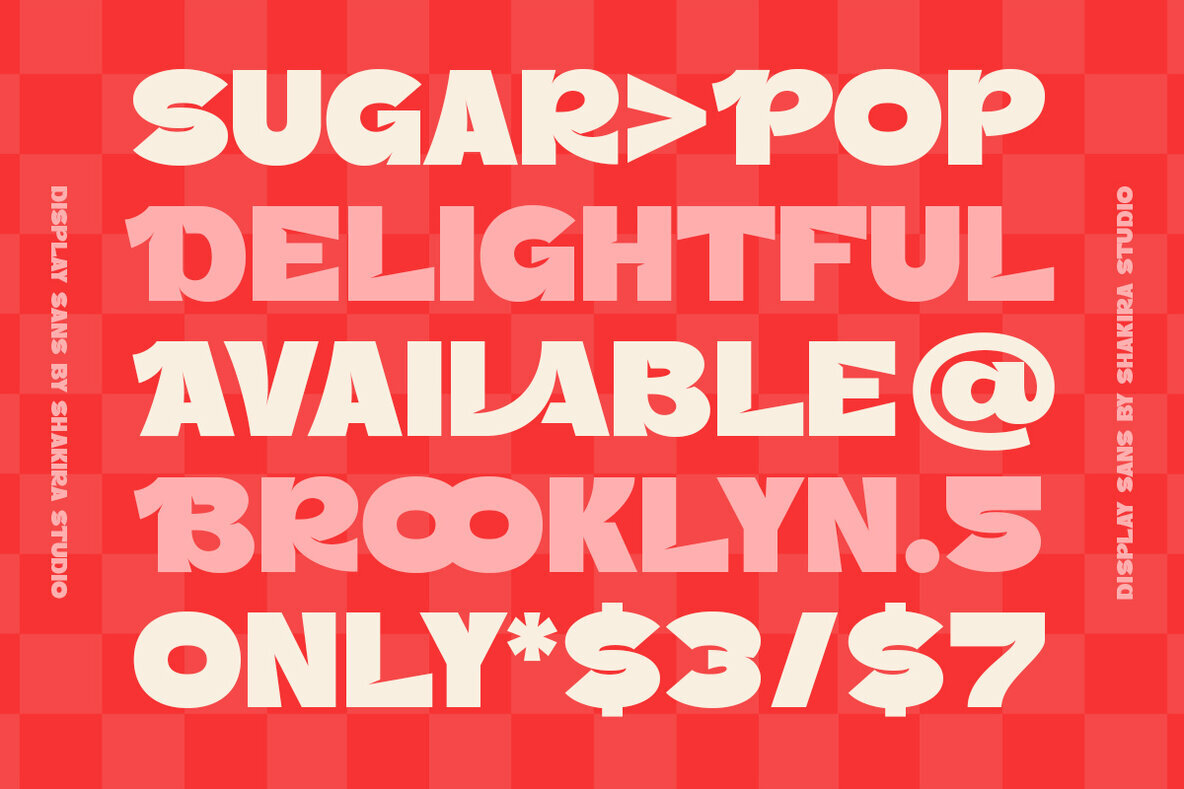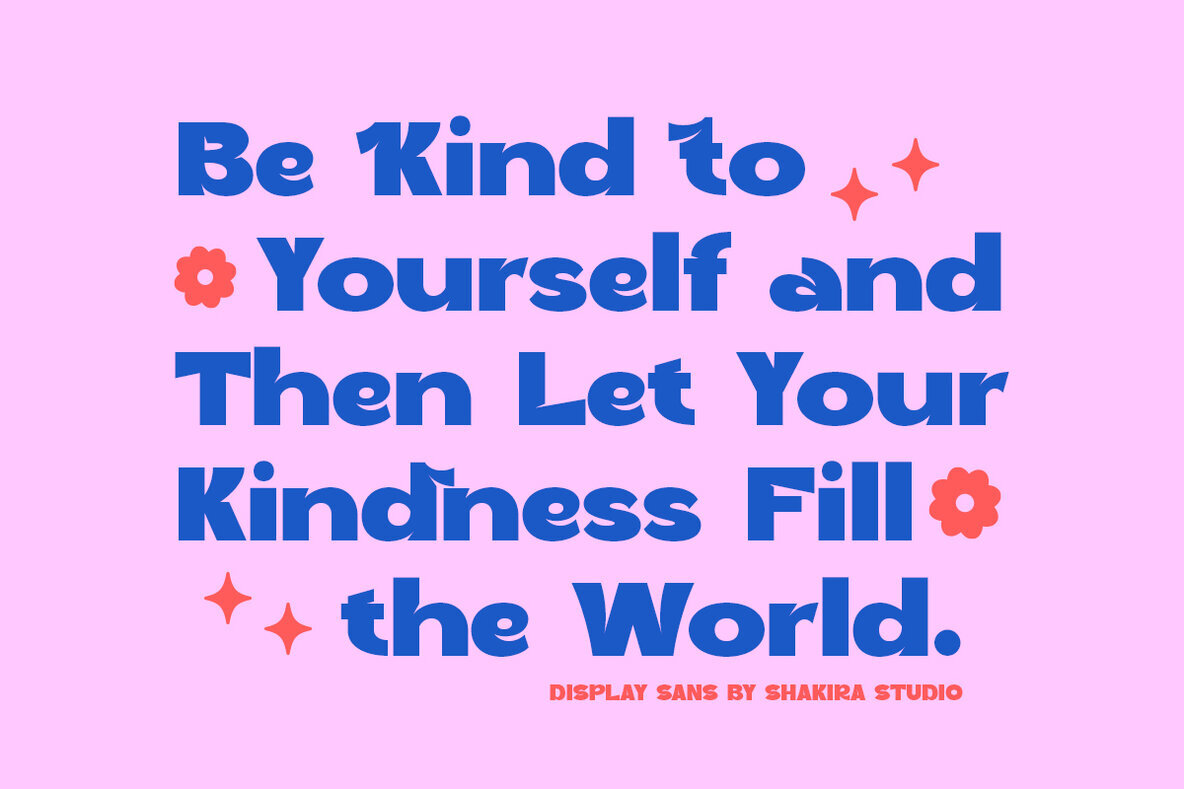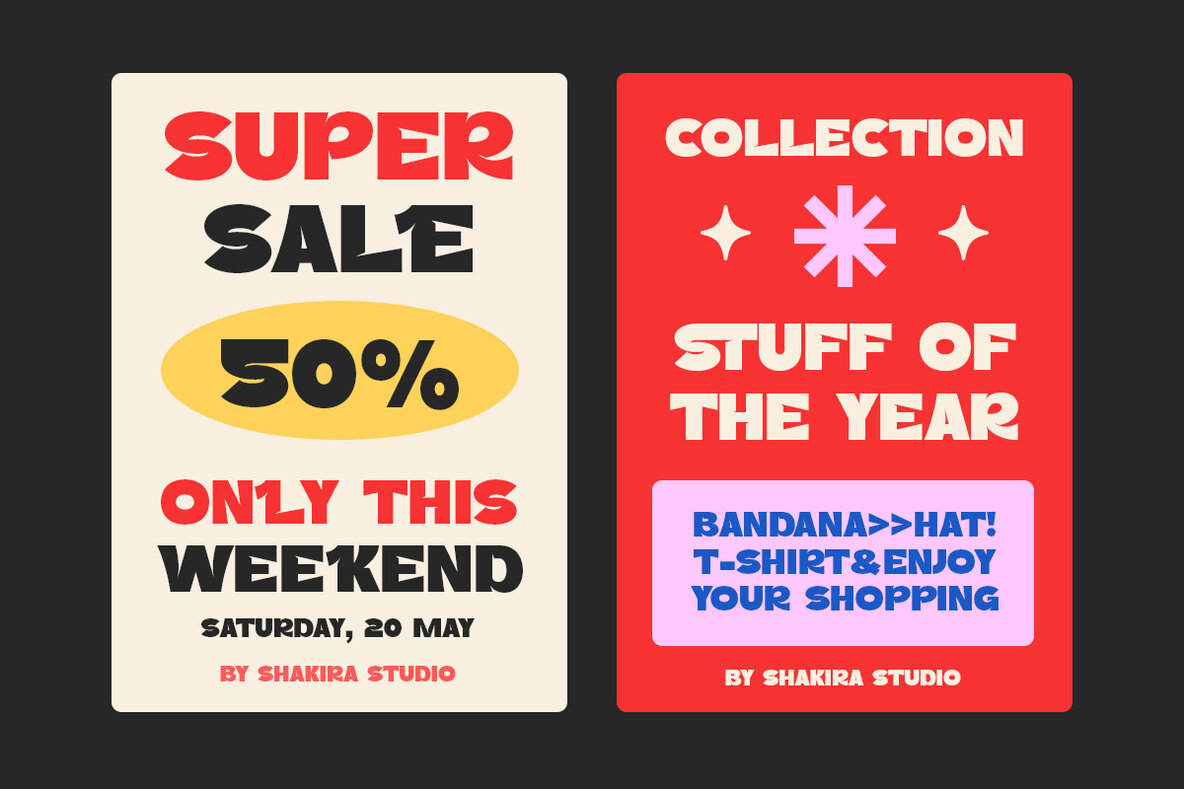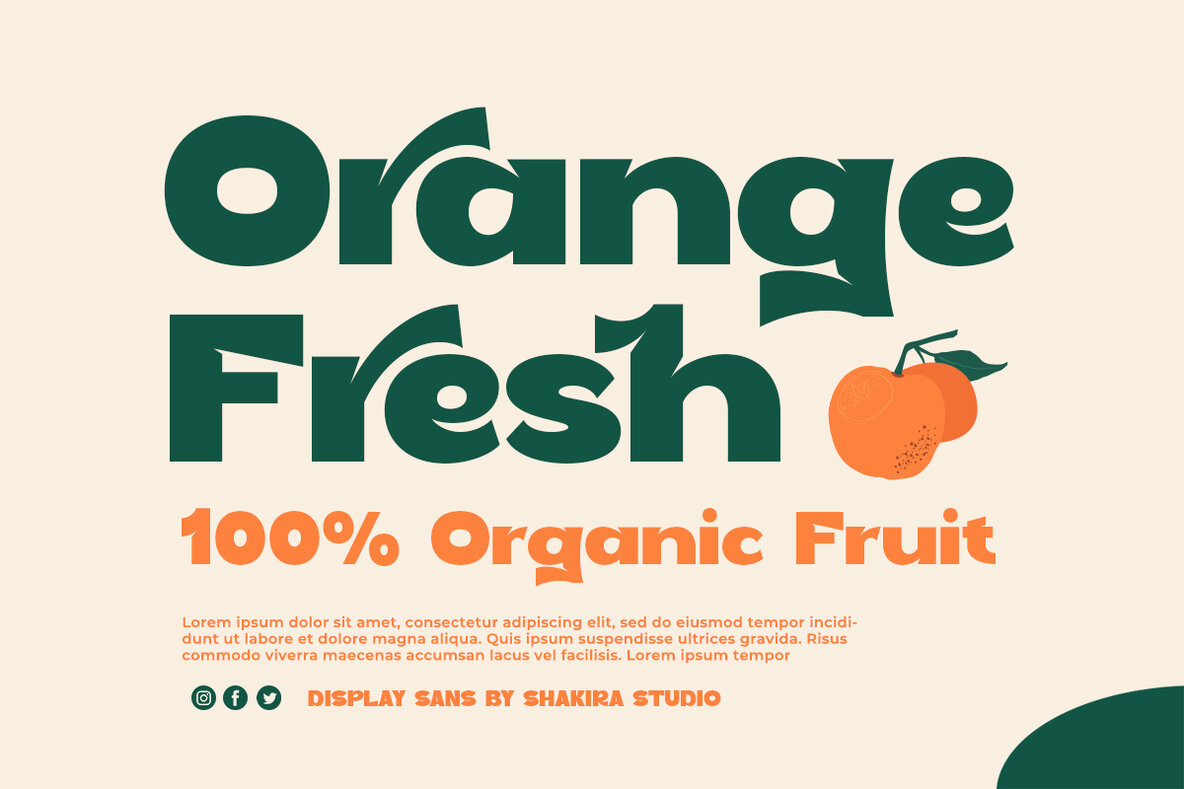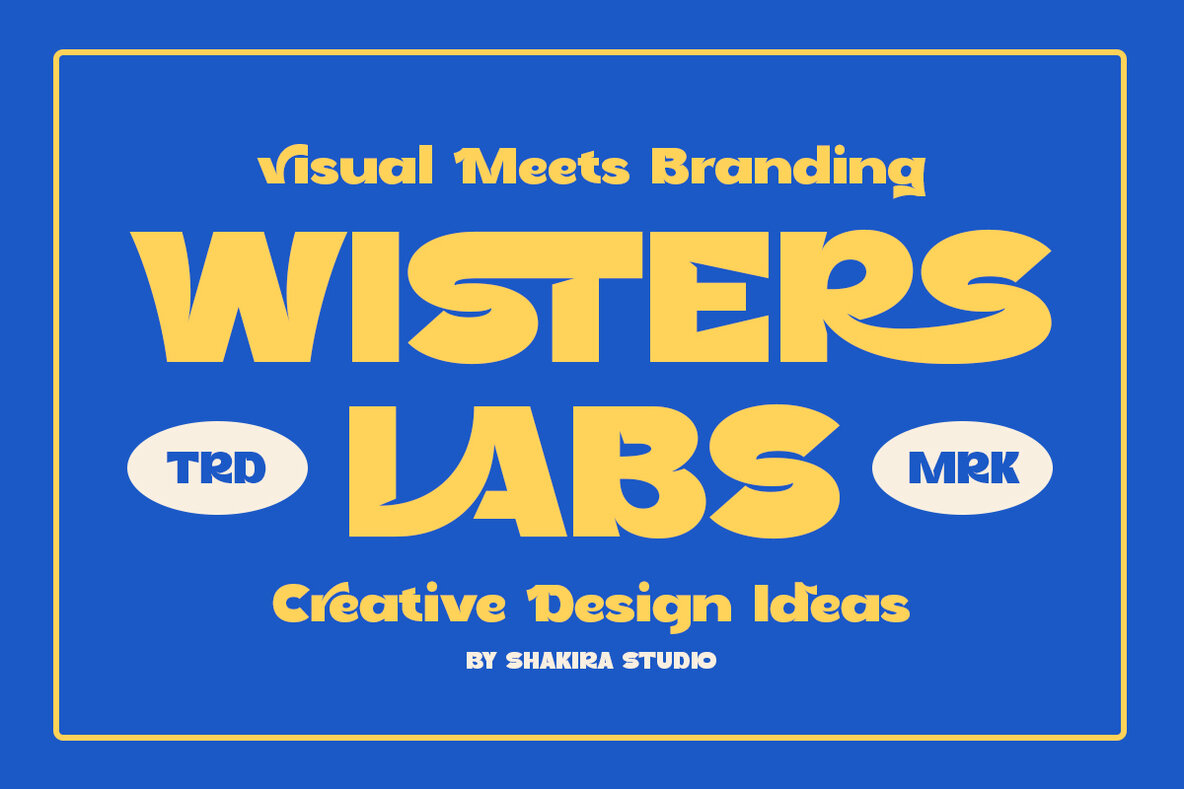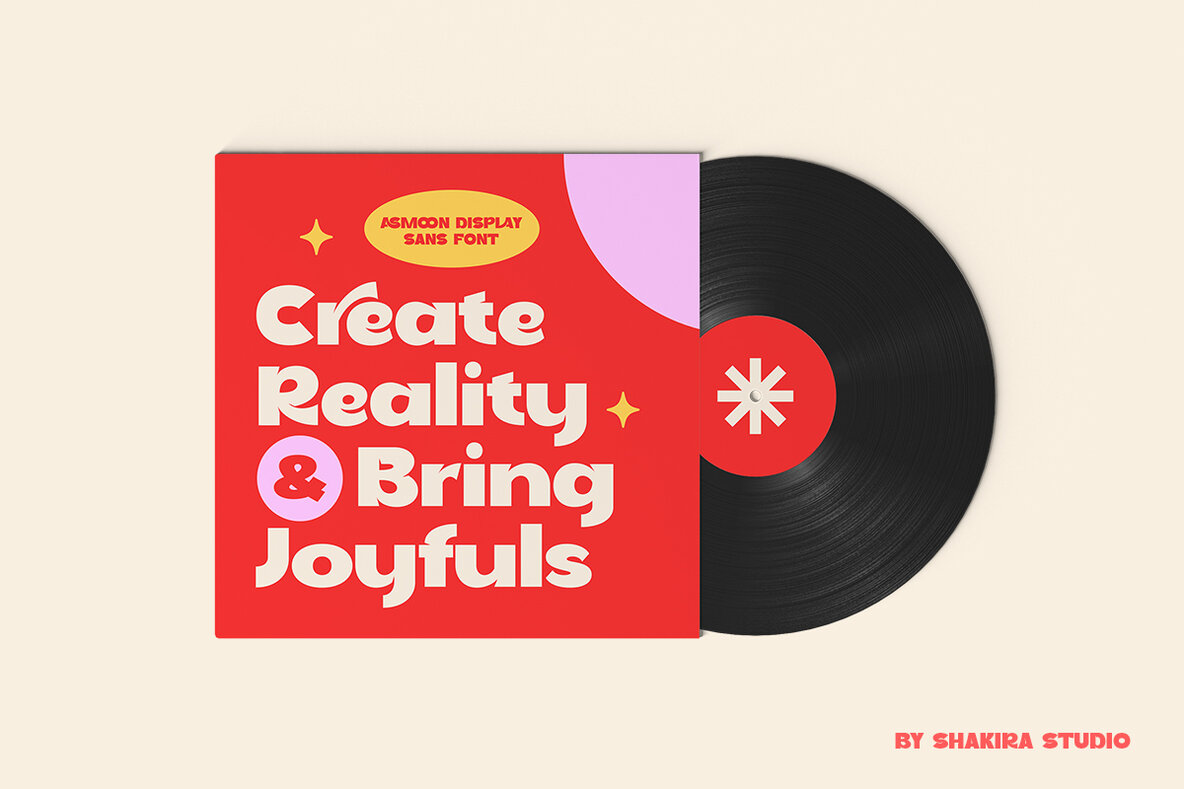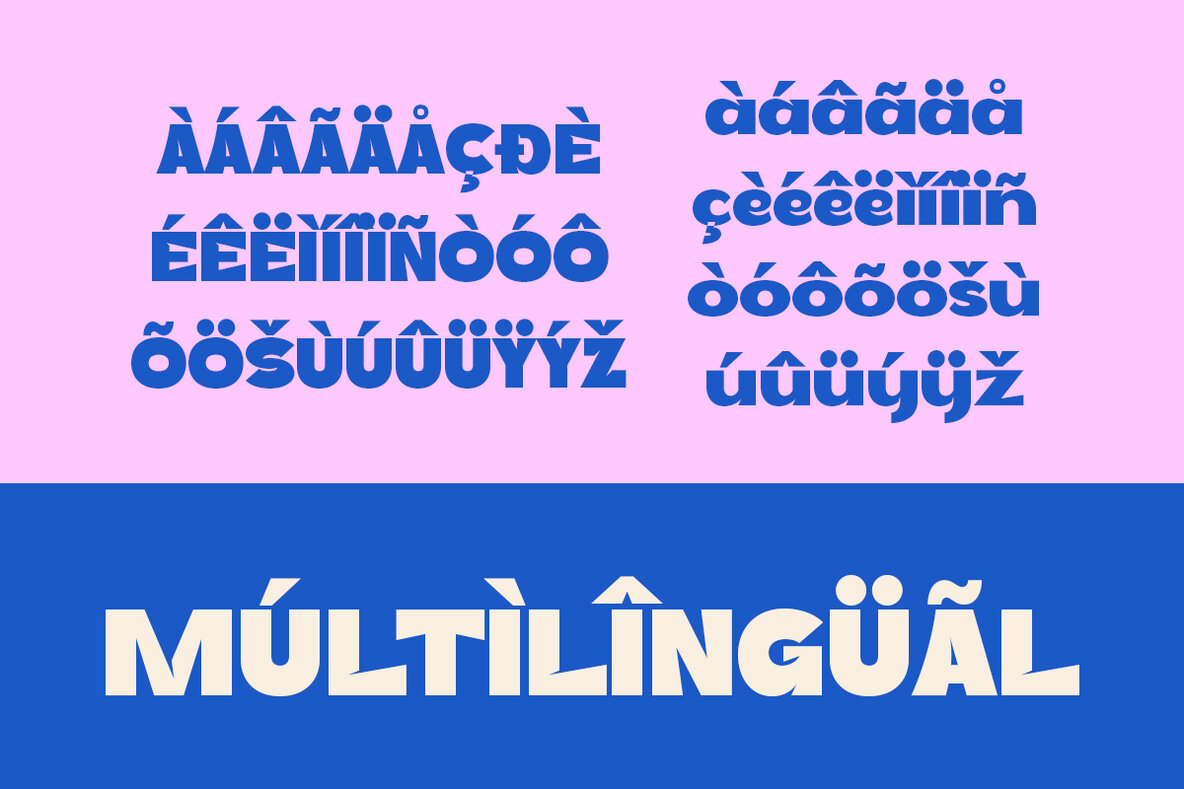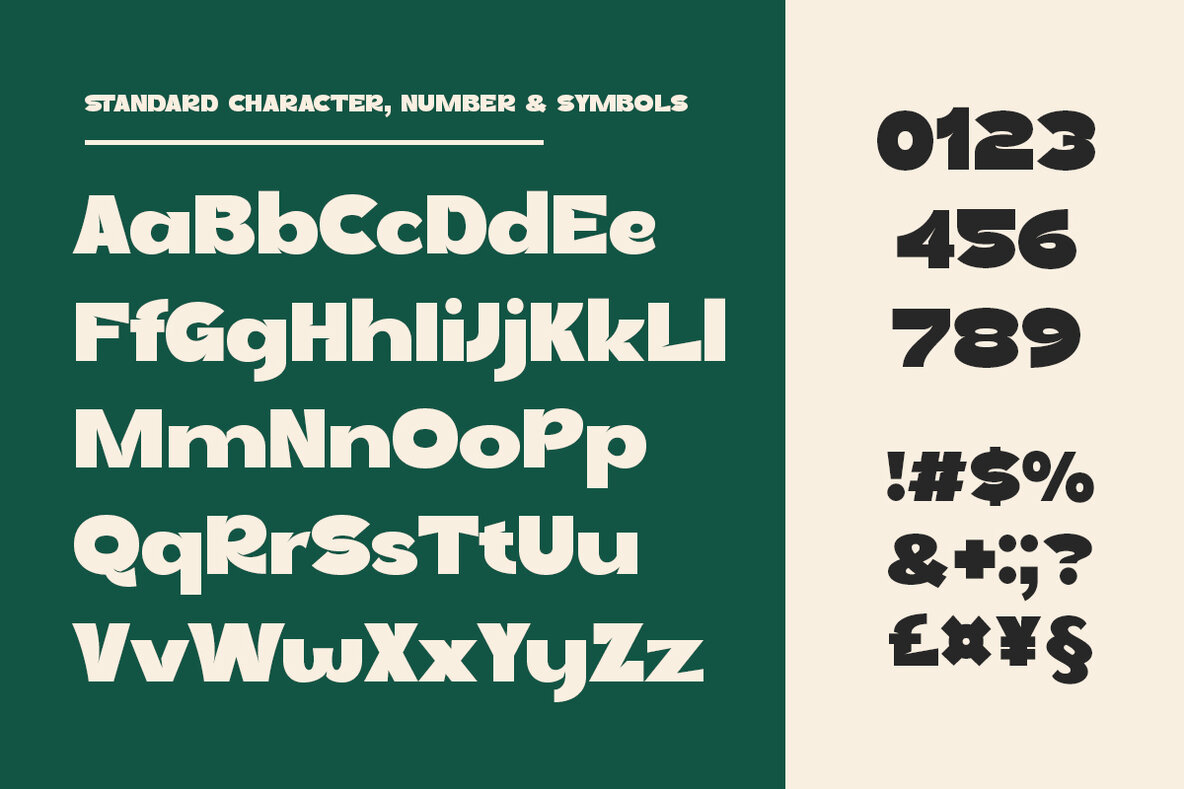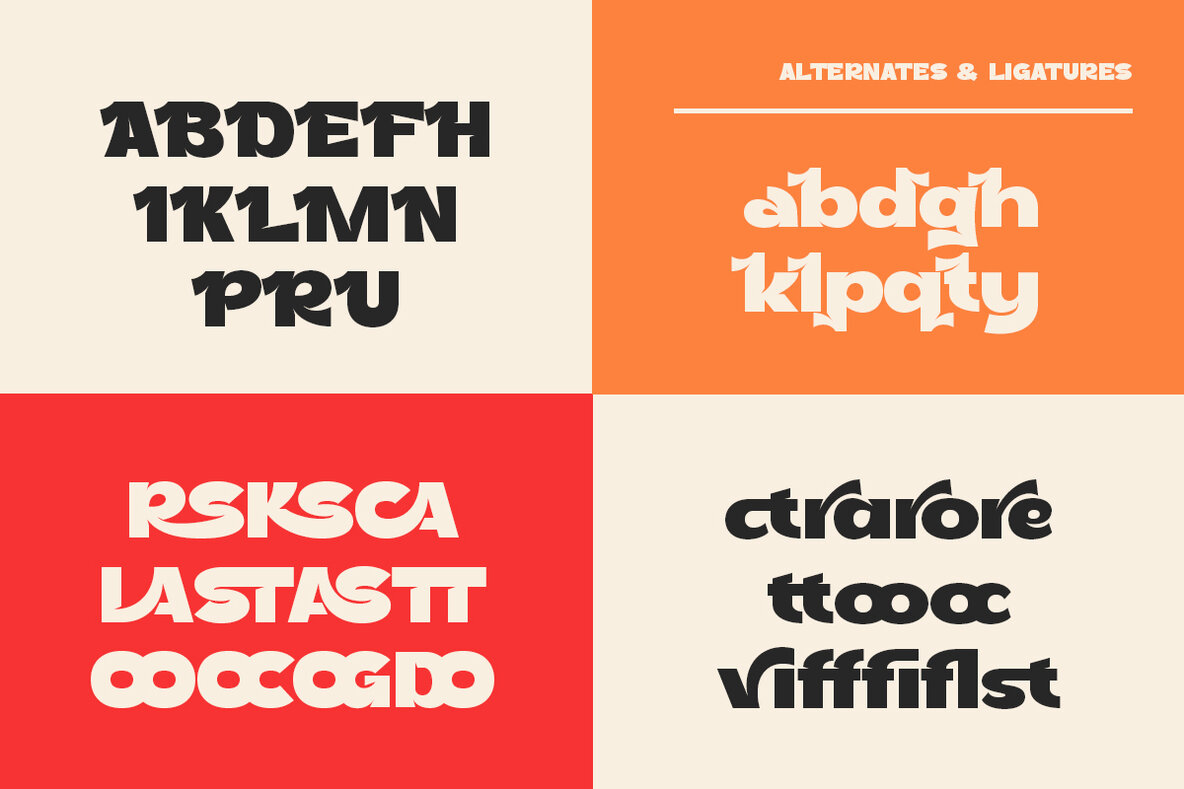
Sagoon Font
Sagoon Regular
Sagon Italic
Sagoon is the ultimate choice for those seeking a modern and robust typeface. Perfectly capturing the essence of #SansSerif and #TypographyTrends, Sagoon stands out with its bold and eye-catching design. With its thick, impactful characters, Sagoon is ideal for creating striking headlines, posters, and branding materials. The inclusion of stylish ligatures and alternates adds a unique flair, making your designs truly memorable. Join the trend towards bold and modern typography with Sagoon. Elevate your creative projects with its powerful presence and contemporary appeal! #SagoonFont #BoldTypography #DesignTrends #ModernDesign #SansSerifFont Here's what you get: Multilingual character supports : (Afrikaans, Albanian, Catalan, Croatian, Czech, Danish, Dutch, English, Estonian, Finnish, French, German, Hungarian, Icelandic, Italian, Lithuanian, Maltese, Norwegian, Polish, Portuguese, Slovenian, Spanish, Swedish, Turkish, Zulu)